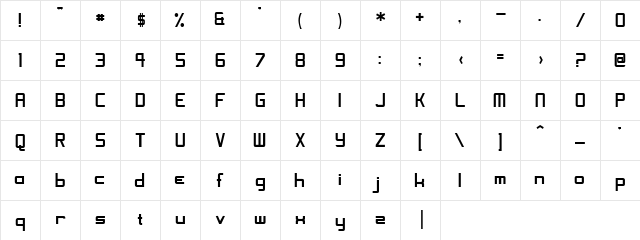
ShoomVertical Normal
Design Context for ShoomVertical Typeface
ShoomVertical is a composed and adaptable typeface that performs quietly and consistently across a wide range of design contexts.